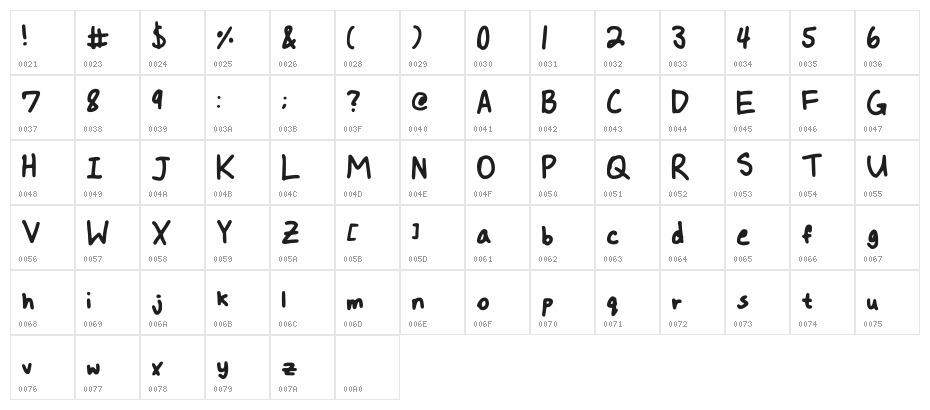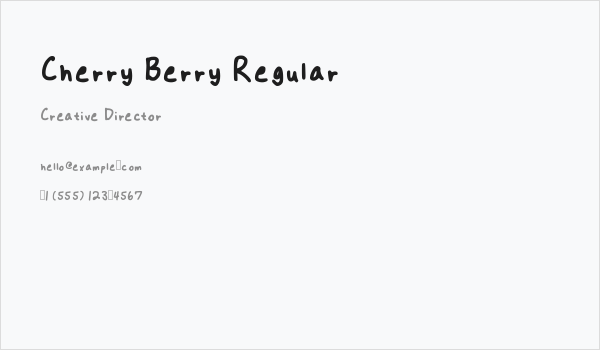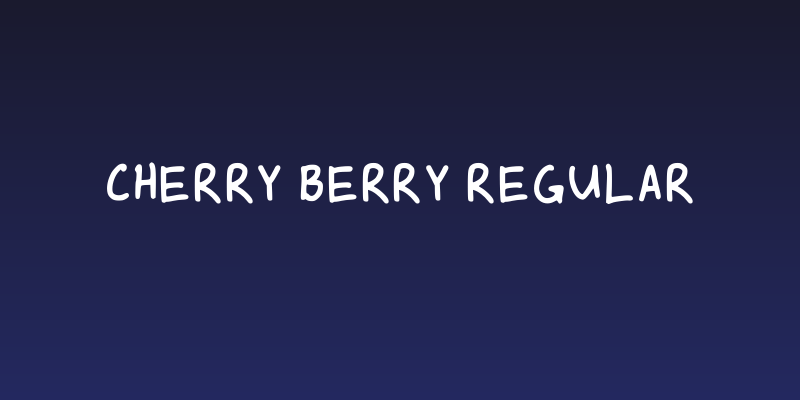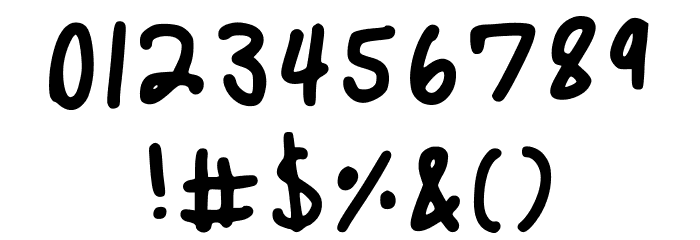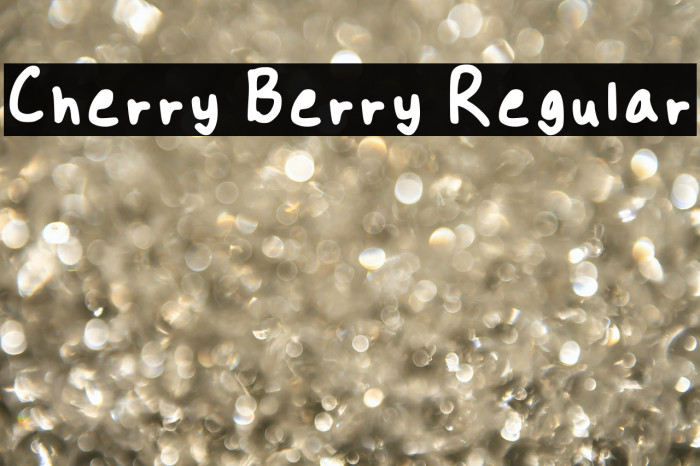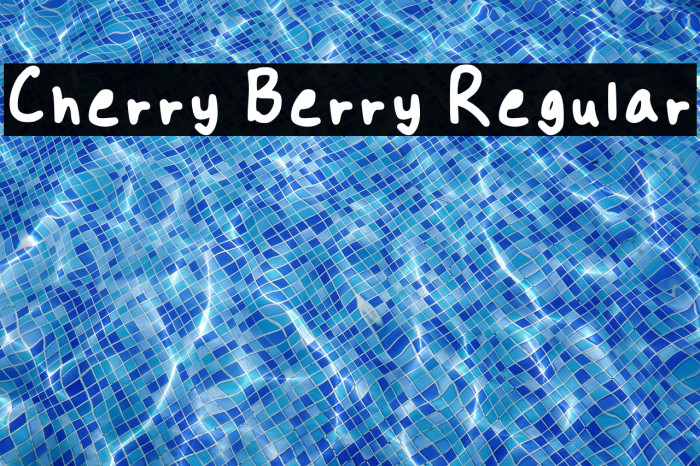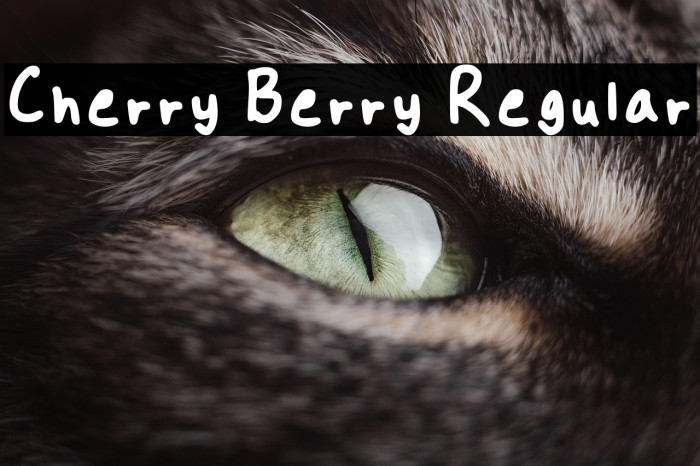
Cherry Berry Regular Font
Cherry Berry Regular Description
This playful and whimsical font features a handwritten style with a casual and friendly appearance. The characters are rounded and slightly irregular, giving them a personal touch that mimics natural handwriting. The strokes are consistent in width, providing a uniform look across all characters. This font includes both uppercase and lowercase letters, numerals, and a variety of special characters, making it versatile for different uses. The overall design is approachable and informal, suitable for projects that require a personal or creative touch.